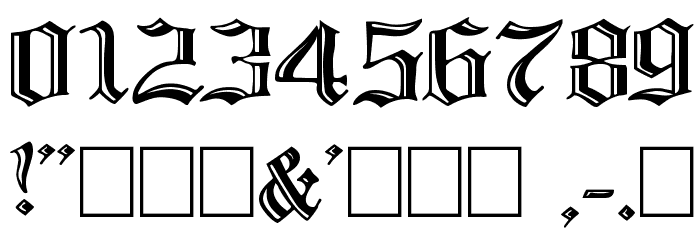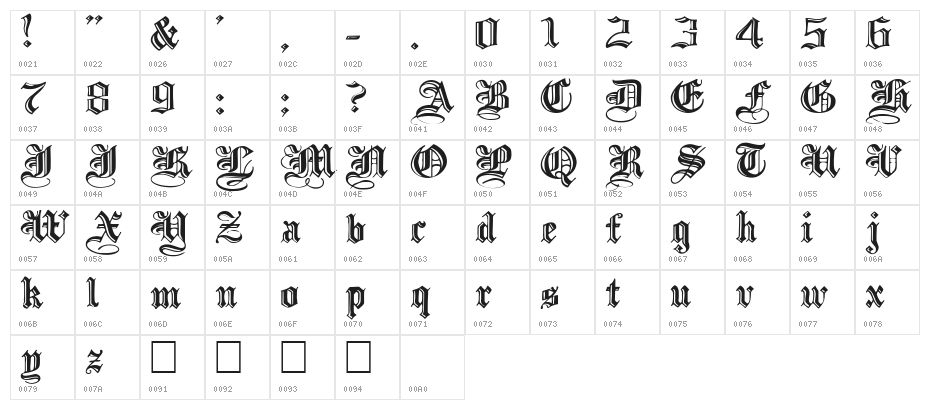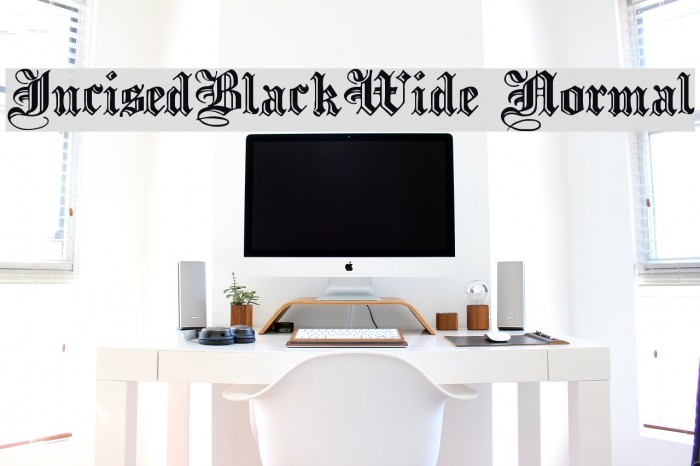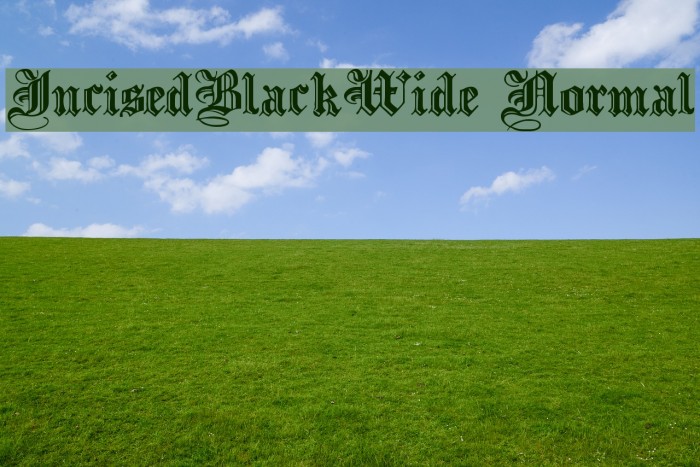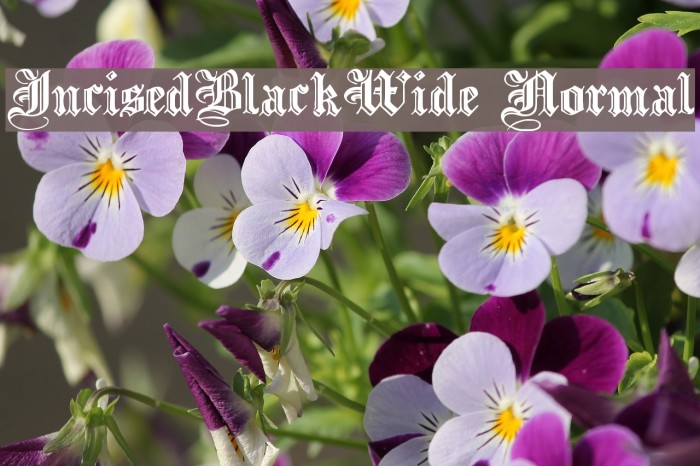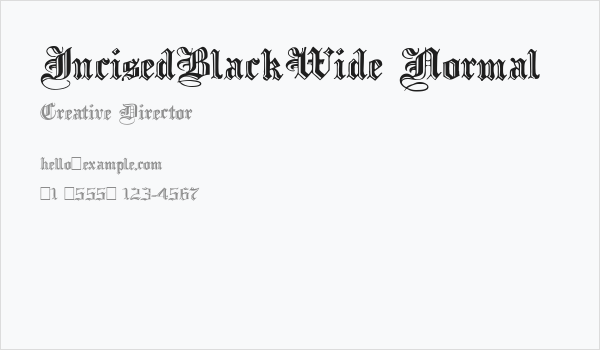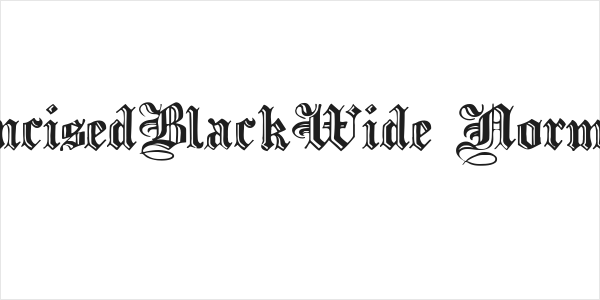
IncisedBlackWide Normal Font
IncisedBlackWide Normal Description
This font exhibits a classic blackletter style, characterized by its intricate and ornate design. The uppercase letters are adorned with elaborate swashes and flourishes, giving them a highly decorative appearance. The lowercase letters maintain the traditional blackletter form, with sharp angles and a strong vertical emphasis. The numerals are equally stylized, featuring bold strokes and distinctive shapes. Special characters, including punctuation marks, are designed to complement the overall aesthetic, enhancing the font's cohesive look. This font's historical and artistic qualities make it suitable for projects that require a touch of elegance and tradition.
| Proposed Projects | Ideal for certificates, invitations, historical documents, and branding that requires a classic touch. |